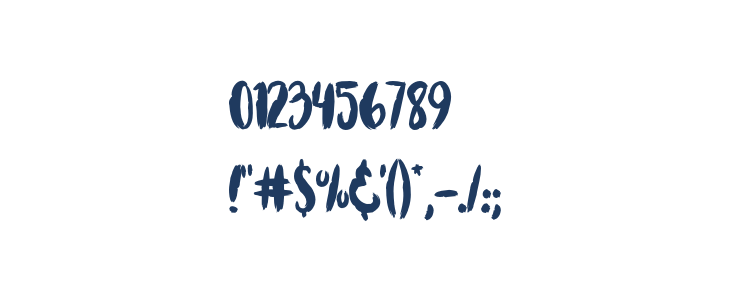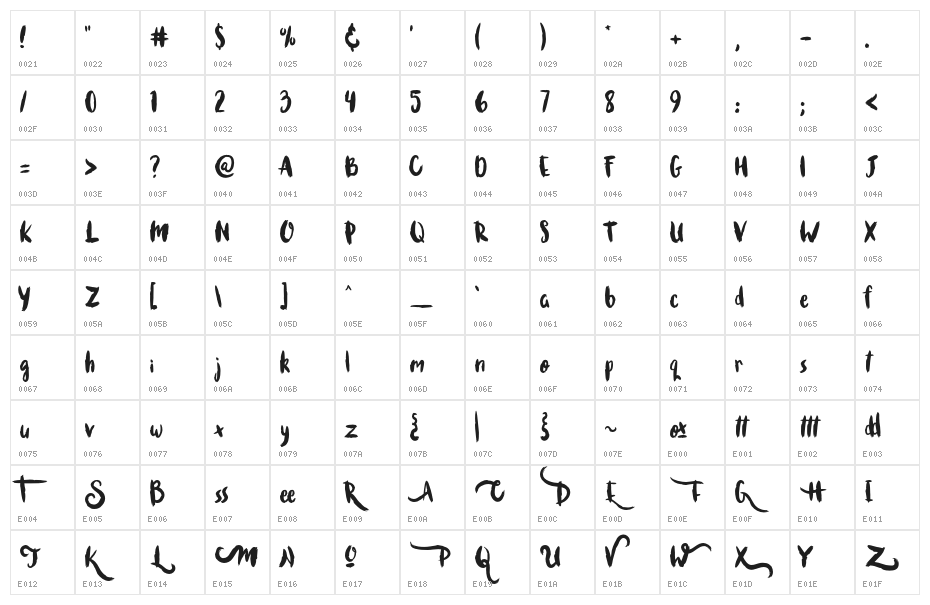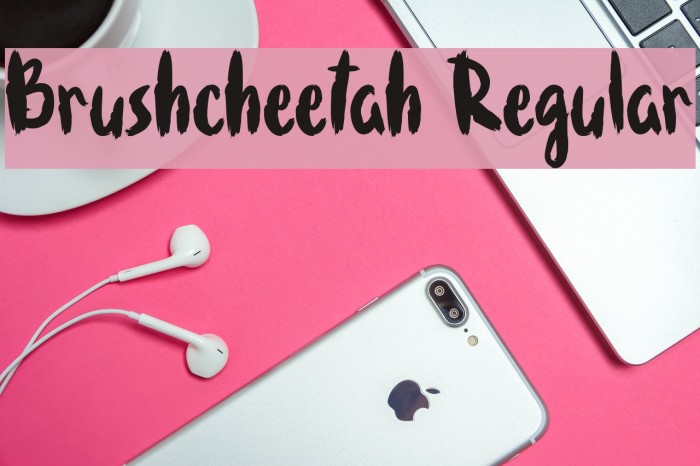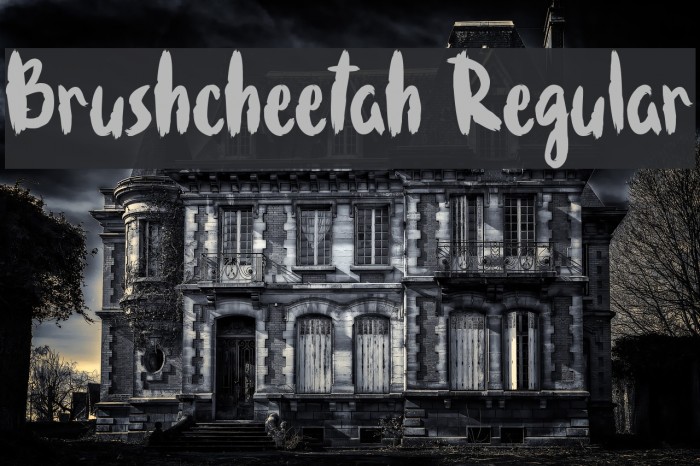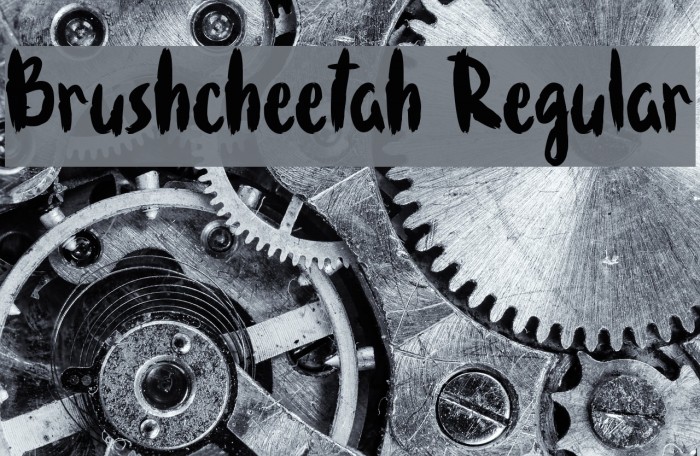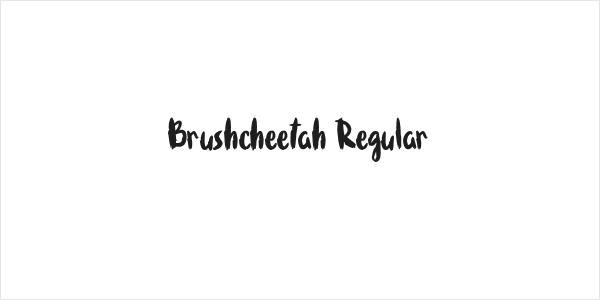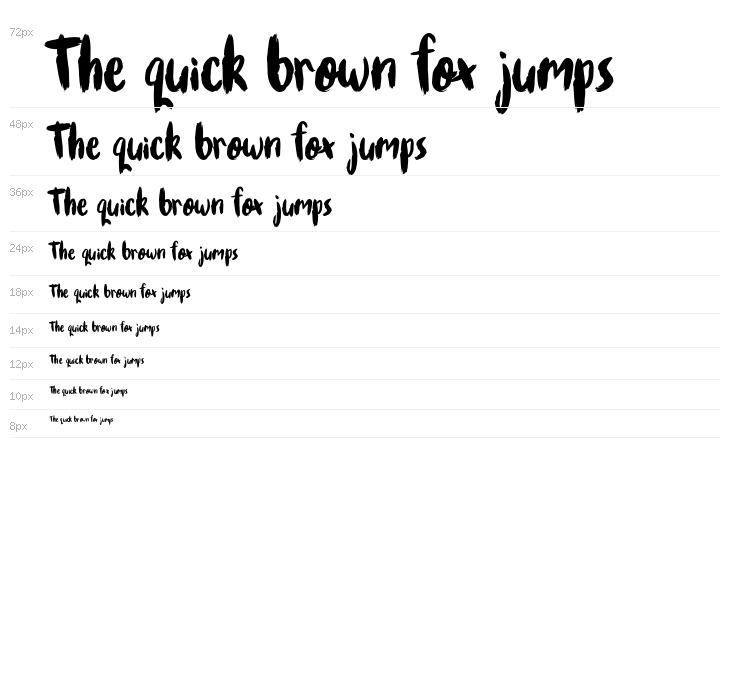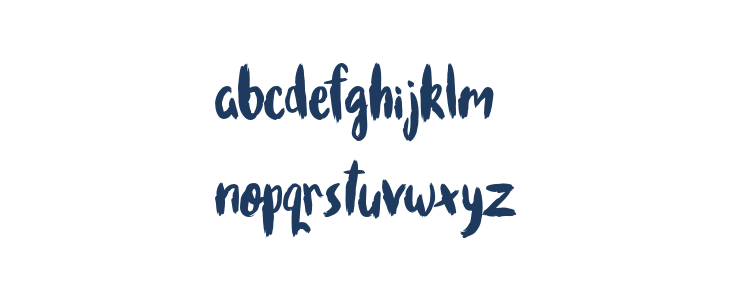
Brushcheetah Regular Font
Brushcheetah Regular Description
This font features a bold, brushstroke style that exudes energy and dynamism. The characters are crafted with a rough, hand-painted appearance, giving them a natural and organic feel. The uppercase and lowercase letters maintain a consistent style, with thick strokes and slightly irregular edges that enhance the handmade aesthetic. The numbers and special characters follow the same design principles, ensuring a cohesive look across all elements. This font is ideal for projects that require a touch of creativity and expressiveness, such as posters, branding, and artistic designs.
Proposed ProjectsPerfect for posters, branding, artistic designs, and any project needing a creative touch.